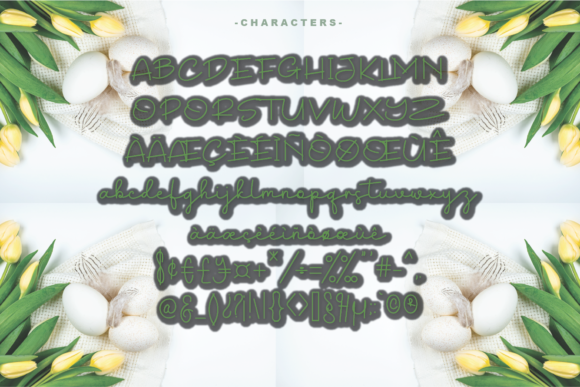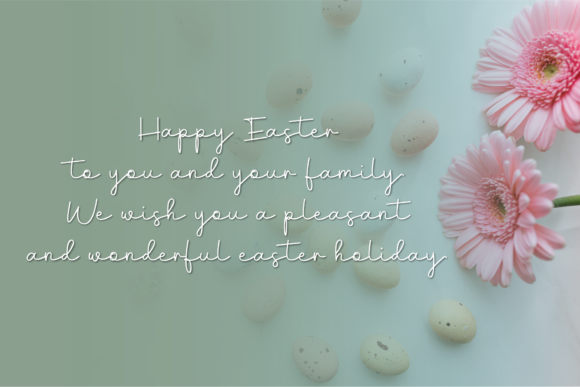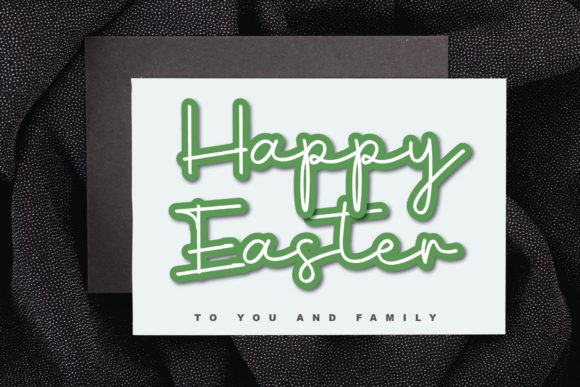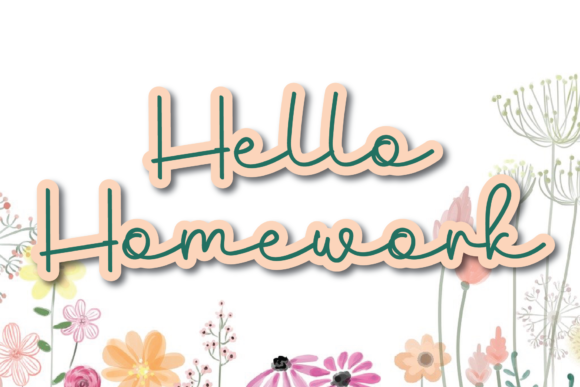
Easter Font
About Easter Font
“Easter” is an elegant handwritten font that seamlessly combines timeless elegance with a beautiful modern impression. This versatile font stands out as a stunning choice for a wide array of design applications, including wedding invitations, thank-you cards, greeting cards, business cards, logos, advertisements, product packaging, quotes, and more.
In the context of wedding invitations, “Easter” imparts a refined and stylish touch, contributing to the overall beauty of the special occasion. The font’s elegant handwritten style adds a personal and sophisticated element to the invitations, making them visually captivating.
For thank-you cards and greeting cards, the font’s beauty enhances the warmth of personal messages. Its modern impression ensures that the cards maintain a contemporary and stylish appearance, suitable for various occasions and sentiments.
When applied to business cards and logos, “Easter” radiates professionalism and sophistication. The font’s clean lines and modern aesthetic contribute to a memorable branding image, making it a versatile choice for creating a distinctive and polished identity.
In advertisements and product packaging, “Easter” stands out with its elegant yet contemporary design. The font captures attention and communicates a sense of quality and style, making it a valuable asset for promoting products and brands.
The font’s charm lies not only in its overall elegance but also in the varied and interesting hand strokes it presents. The lines, fields, and stunning alternates add a dynamic and visually engaging quality to the text, ensuring that it remains captivating in diverse design contexts.
In quotes and other textual elements, “Easter” brings a touch of sophistication and modernity, elevating the visual impact of the message. Its ability to balance elegance with a contemporary vibe ensures that it remains relevant and appealing across different design projects.
In summary, “Easter” is more than just a font; it’s an elegant and modern tool that enhances various design applications. Its stunning hand strokes, clean lines, and versatile aesthetic make it a valuable asset for creatives looking to infuse their projects with sophistication and style. Incorporate “Easter” into your designs to achieve a timeless and elegant look, ensuring that your visuals leave a lasting impression.